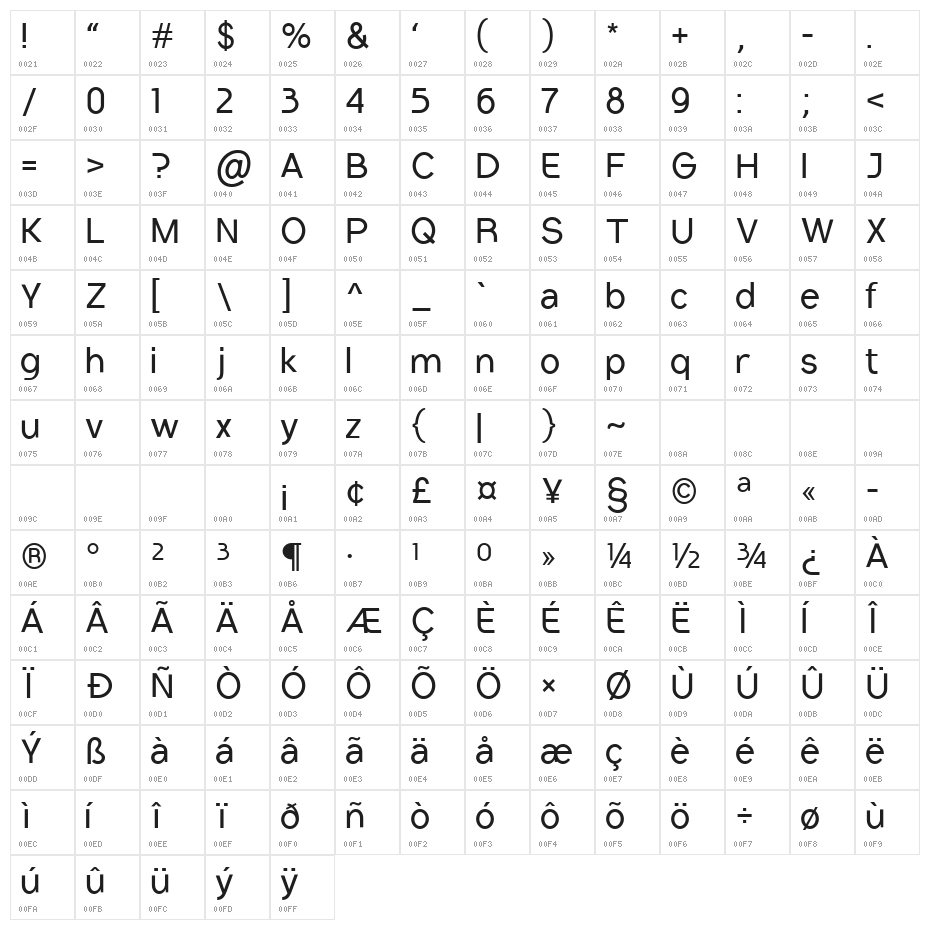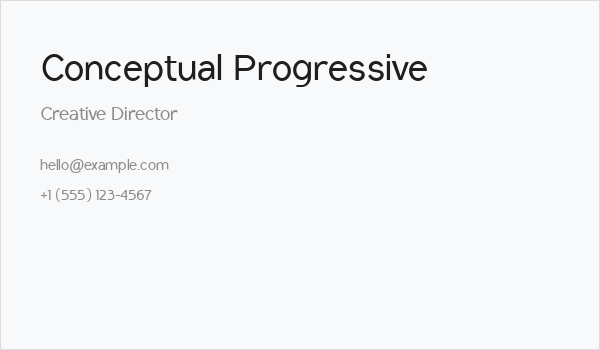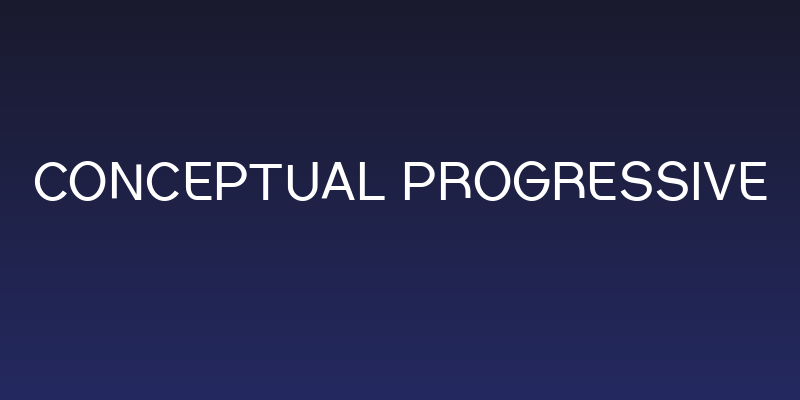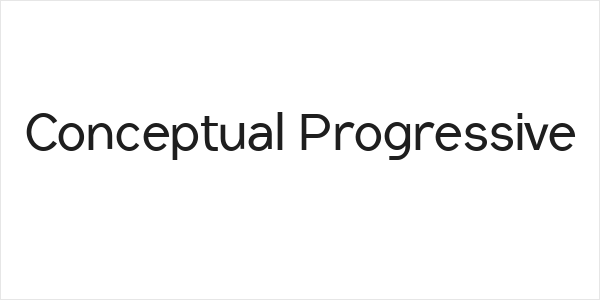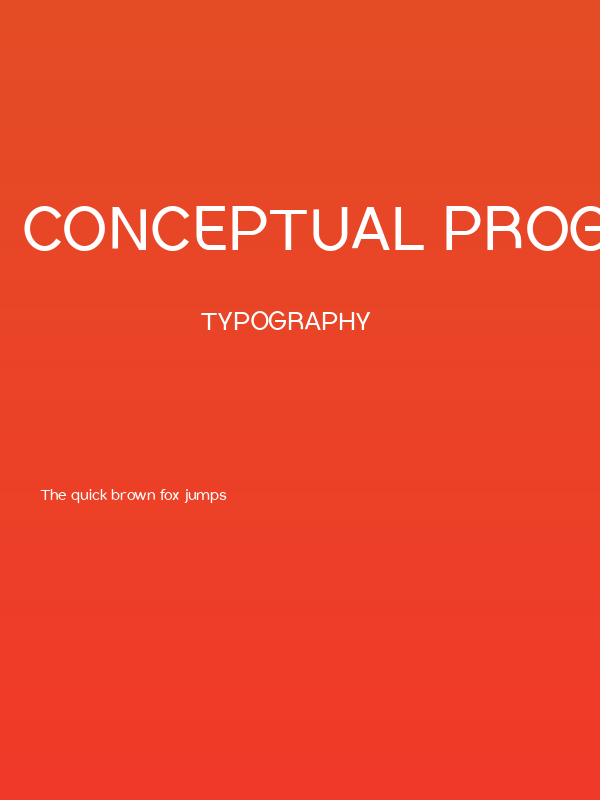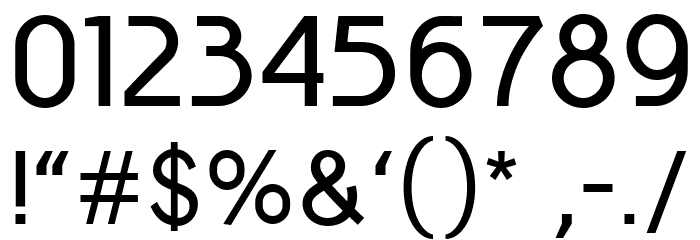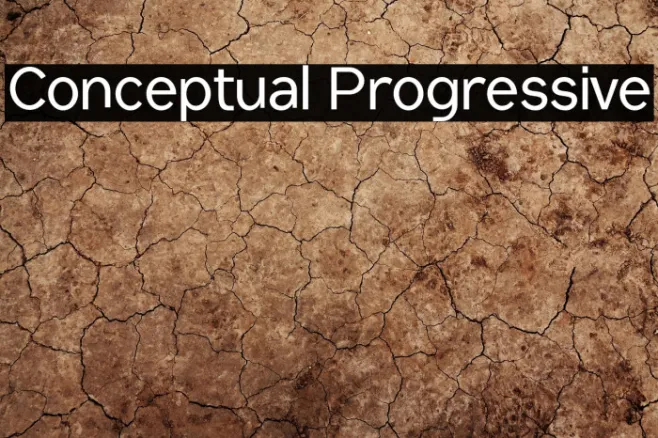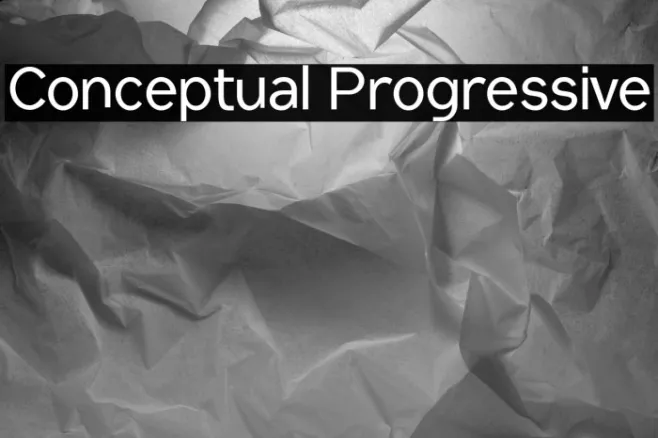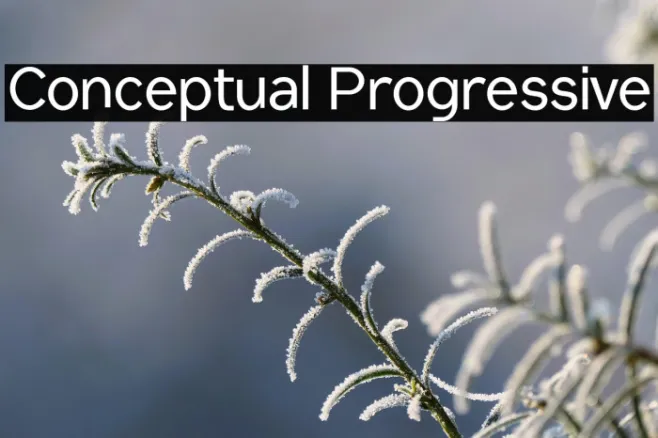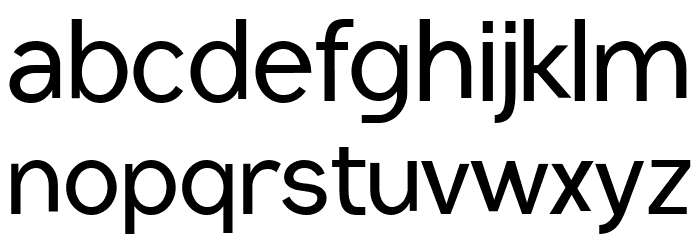
Conceptual Progressive Font
Conceptual Progressive Description
This font presents a clean and modern aesthetic with a sans-serif style. The characters are well-proportioned, featuring a uniform stroke width that contributes to its sleek and contemporary look. The uppercase letters are bold and assertive, while the lowercase letters maintain a friendly and approachable appearance. The numerals are clear and easily distinguishable, making them suitable for various applications. Special characters are neatly integrated, ensuring versatility in design projects. Overall, this font exudes a sense of professionalism and clarity, making it ideal for digital and print media.